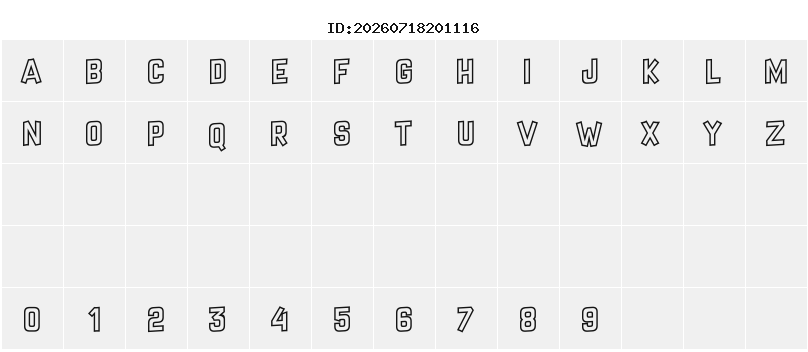
Crazy Sixties Hollow Preview
• Font Name: Crazy Sixties Hollow
• Font ID: Crazy Sixties Hollow:Version 1.00
• Full Font Name: Crazy Sixties Hollow
• Version: Version 1.00 April 7, 2016, initial release
• PostScript Name: CrazySixtiesHollow
• Character Count: 241
• Designer: IMAGEX
About Crazy Sixties Hollow.ttf
Crazy Sixties Hollow.ttf is a modern, elegant sans-serif font designed for ultimate readability and visual harmony. Perfect for branding, headlines, web design, and print materials.